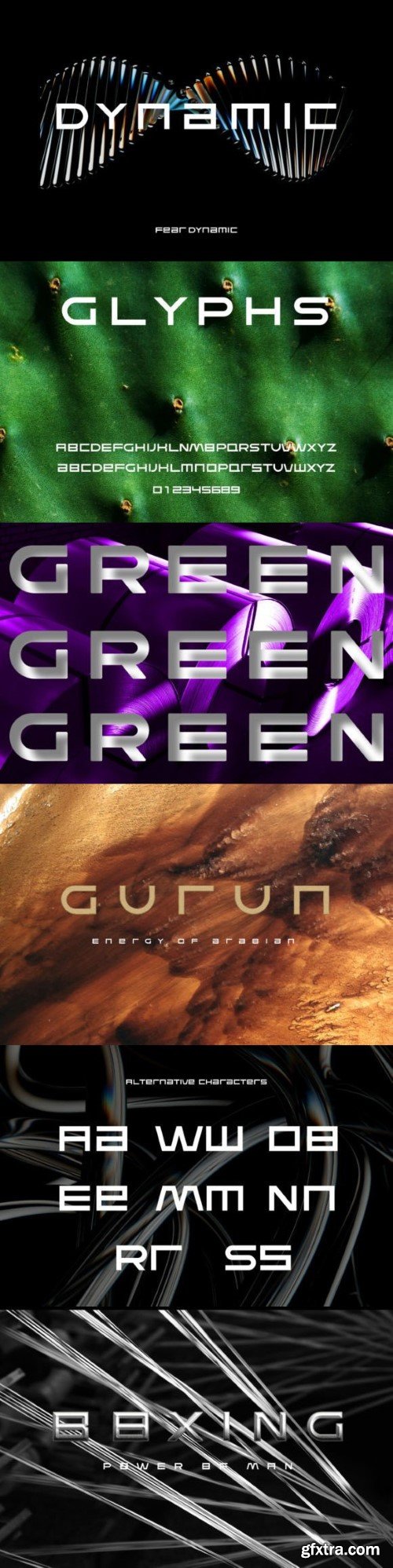
动态字体
Dynamic features sleek, modern letterforms with subtle futuristic accents, symbolizing the advancement and sophistication of AI-driven systems. Dynamic is versatile and legible, making it suitable for a wide range of applications, from digital interfaces to branding and advertising in industries at the forefront of technological innovation.